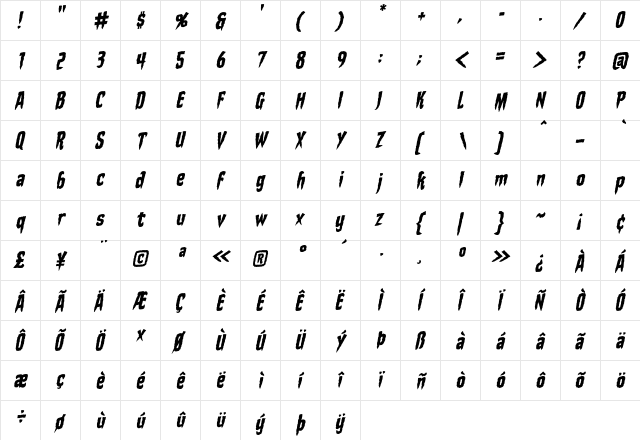
Stake Through the Heart BB Italic
| Foundry | Nate Piekos. Blambot.com |
| Designer | Nate Piekos |
Design Context for Stake Through the Heart BB Typeface
Stake Through the Heart BB trades polish for personality, using distressed and eroded forms to bring grit and attitude to creative work. The slanted form adds forward momentum and visual energy.
A strong fit for alternative music projects, graffiti-adjacent design, and anything that deliberately resists polish.
Pro Tip: Use Stake Through the Heart BB at larger sizes where the texture and irregularity of each letterform can be clearly seen — it loses its character at small sizes.